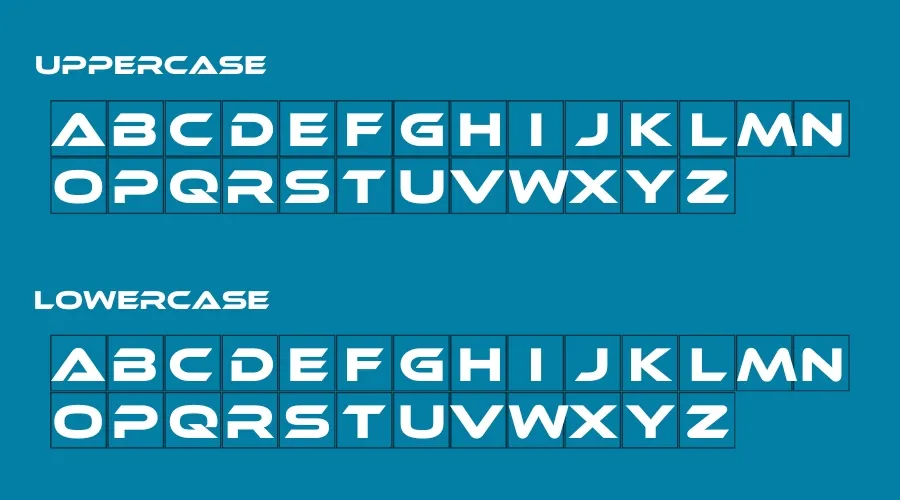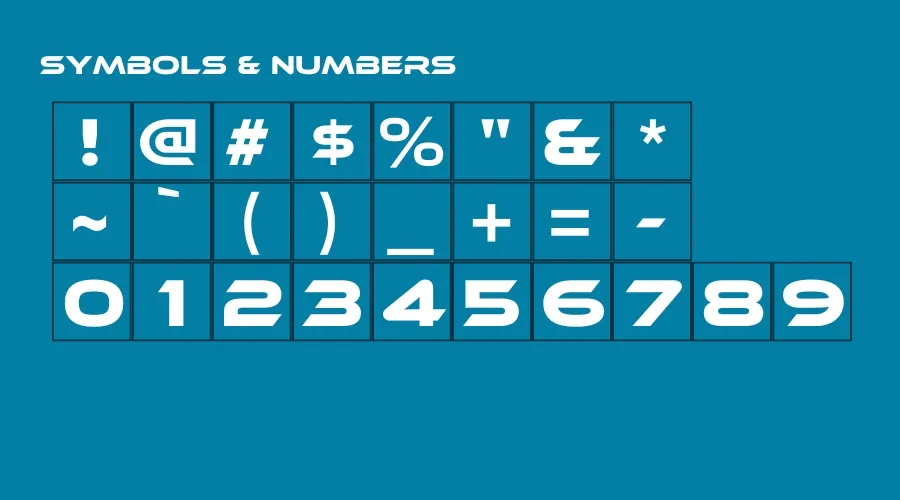
Ethnocentric Font
About Ethnocentric Font
The Ethnocentric Font is an ultramodern and accelerated future and was designed by Typodermic fonts. This font is under the category of Techno, sci-fi texture family with a unique texture look impression for the visitors.
The typeface is available in different styles and weights regular, light, and bold and includes 363 unique structures such as uppercase letters, lowercase letters, symbols, digits, as well as numerals, and a few unique symbols. It is suitable for adobe Photoshop and CSS.
This gives you more events for typesetting your text and may give your plans a more vintage or contemporary feel. It has amazing pairing quality, so you can easily compare it with ESPN Font and create modern projects.
This attractive and stylish surface is suitable for making social media posts, banners, logo designs, advertisements, Instagram bio descriptions, and many more. The Ethnocentric typeface can be utilized for creating other purposes and getting outstanding designs.
A lot of designers utilize it for a small and huge levels of design, they use it for web product packing, thumbnails, printings, and many other ideas.
And because of its geometric forms, this font functions nicely for digital and image editing. You may also utilize it for presentations, email templates, advertisements, cloth printings, social media posts, banners, logo designs, and much more projects.
The pairing quality of this font is unique and can be reached with numerous other fonts such as;
Pairing it with American Kestrel Font: This stylish and trendy, techno sci-fi typeface is similar to this typeface. You can use both these two fonts jointly.
With Rockmore Font: It is suitable for creating an amazing and super project. The pairing status of this texture is outstanding with the Ethnocentric style.
Pairing it with American Captain Font: It is a mutual name for halite a favorite texture all around the world. You can analogize these two fonts for various design goals.
What font is Ethnocentric Font?
The Ethnocentric Font is an ultramodern and accelerated future and was designed by Typodermic fonts. This font is under the category of Techno, sci-fi texture family.
How can we learn Ethnocentric Font?
You can easily learn the Ethnocenteric typeface because it has a neat and eye-catching texture that can easily understandable when applied to any design.
How old is Ethnocentric Font?
It is a stylish type and is very flexible, which means that you can utilize it in many different ways. It performs well for both invitation cards and Christmas cards.